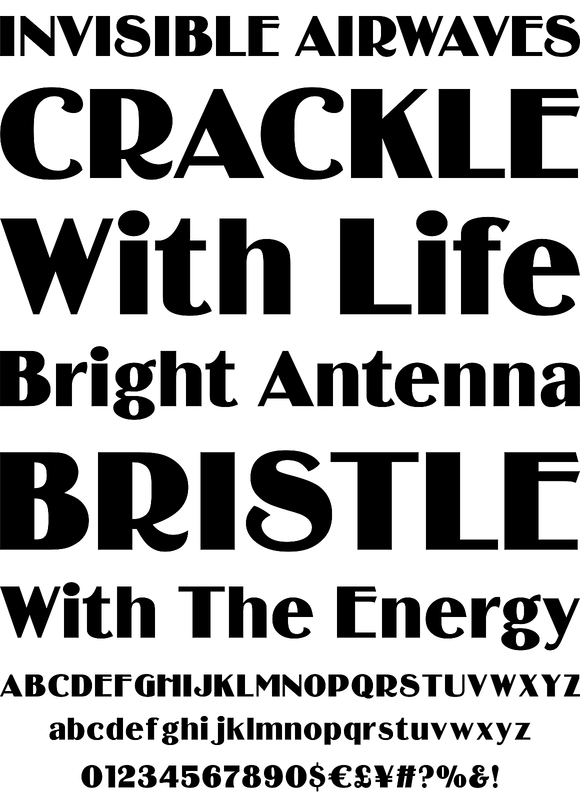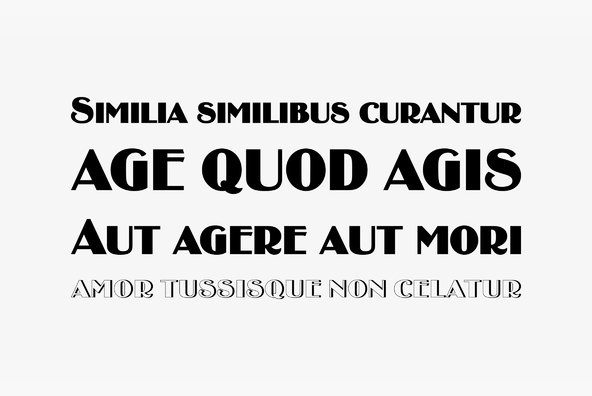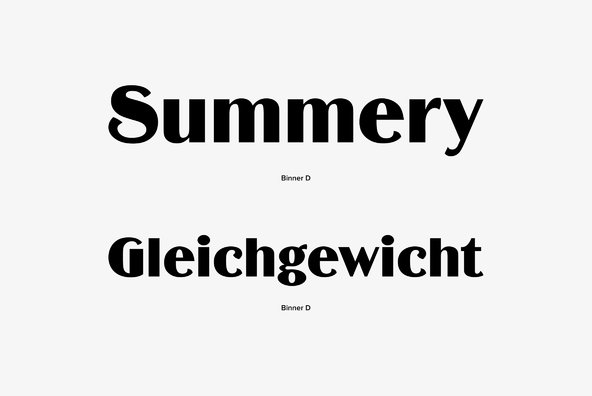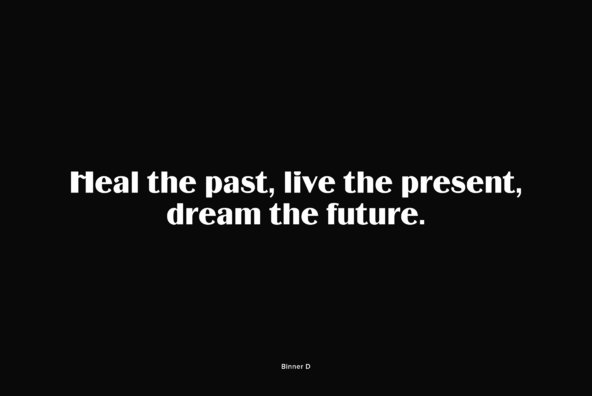
Designed by Andrew Newton, Binner is a retro, sans-serif font release by URW Studio. Contains language support for West, East, Turkish, Baltic, and Romanian.